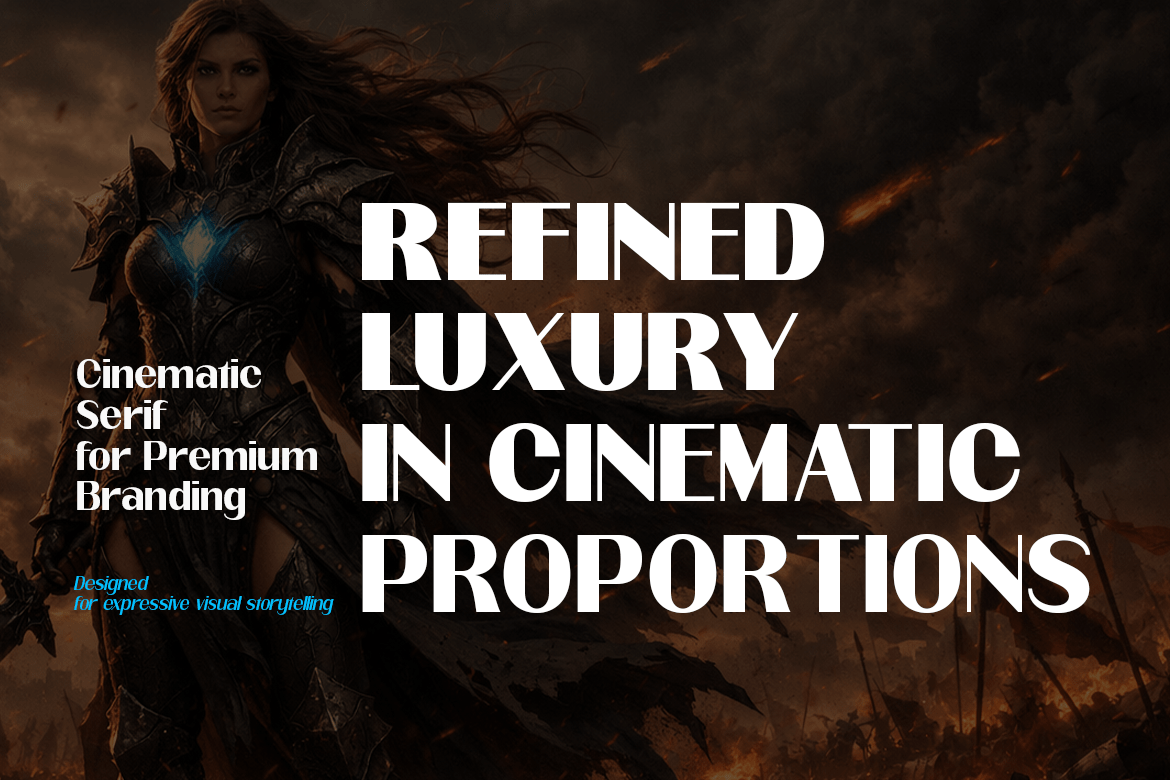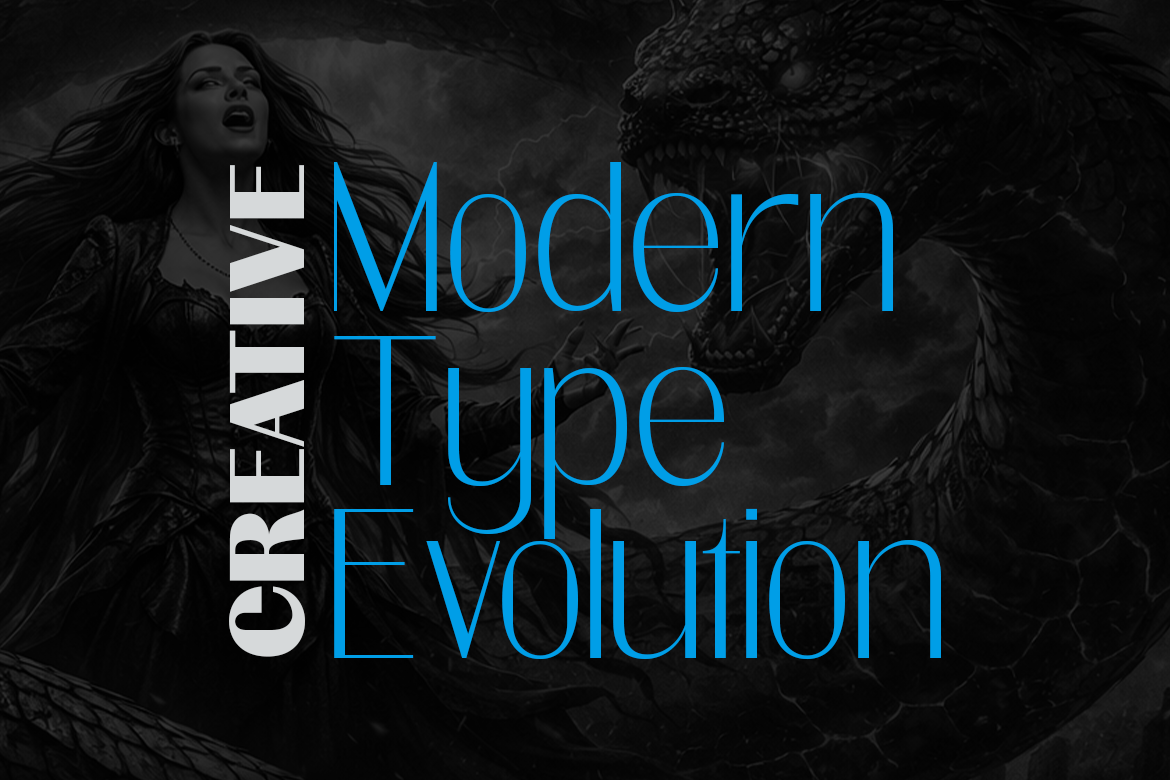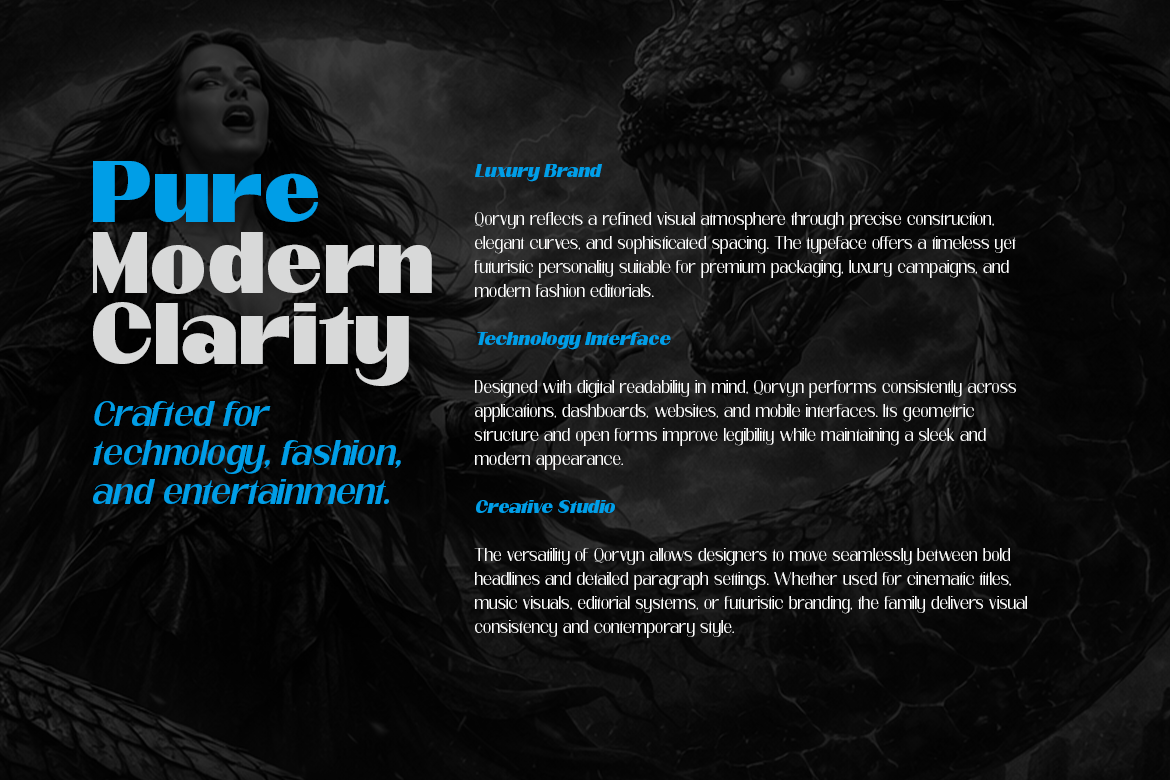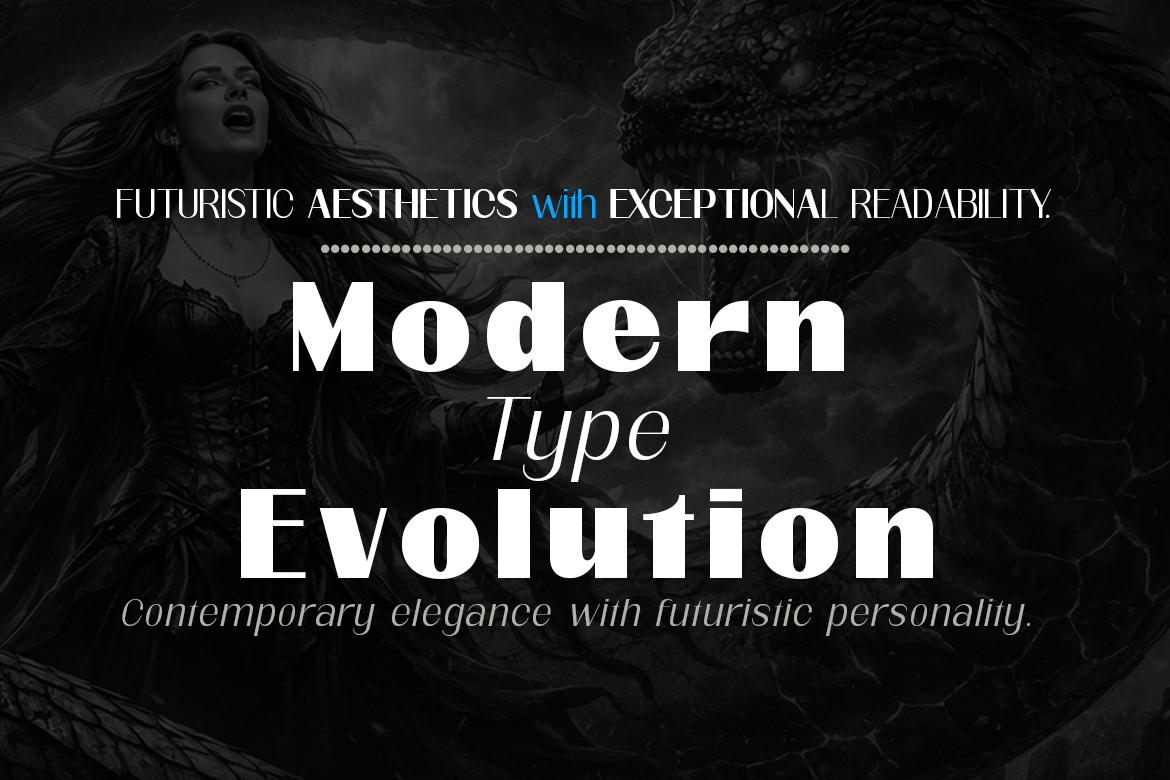
Qorvyn Semi Expanded
Qorvyn Semi Expanded is a modern sans-serif typeface family designed to deliver openness, clarity, and strong contemporary character. Featuring a semi-expanded structure, the family offers wider proportions that create a spacious and confident visual presence while maintaining excellent readability and balanced rhythm. With 18 styles — 9 upright and 9 italic — ranging from elegant thin weights to powerful black styles, Qorvyn Semi Expanded is ideal for branding, editorial headlines, advertising, packaging, digital interfaces, corporate identity, and large-format display design.
The upright styles present a clean, stable, and sophisticated appearance with refined geometric forms and carefully crafted spacing. The italic styles introduce dynamic movement and expressive energy, adding versatility without compromising consistency across the family. Qorvyn Semi Expanded combines modern minimalism with bold visual impact, making it highly effective for designs that require both readability and distinctive personality. Its wider stance enhances legibility and creates a premium aesthetic suitable for contemporary creative and professional applications across print and digital media.